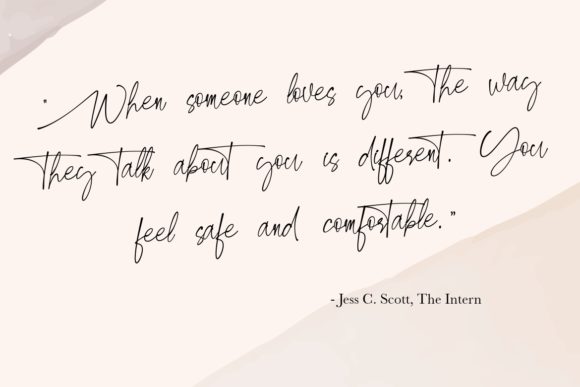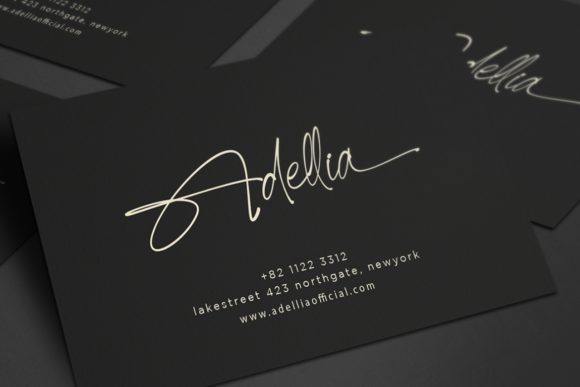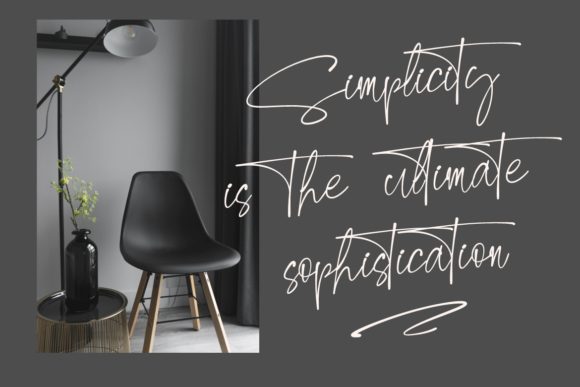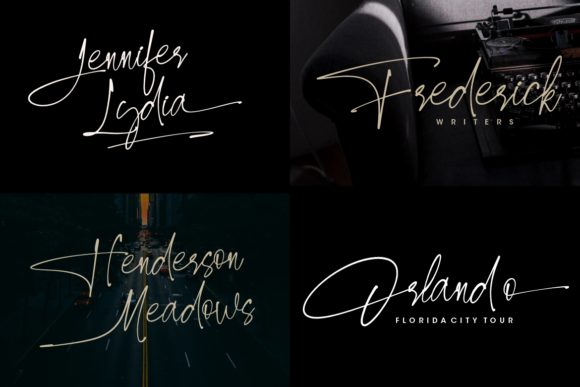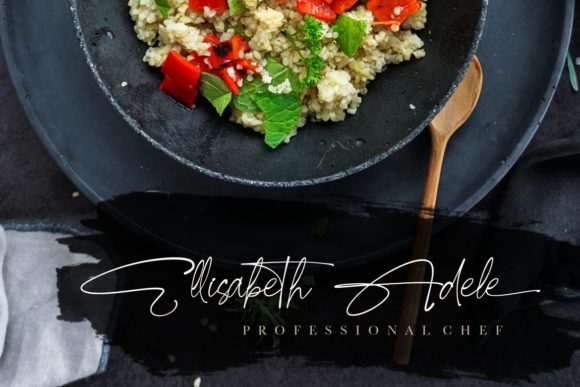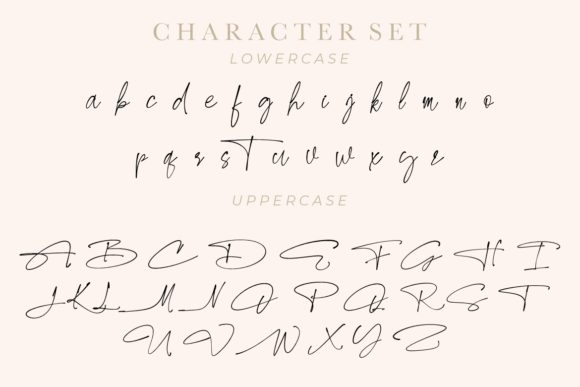
Introduction to Carlista Buttery Font
Have you ever been stuck on a creative project, searching for that perfect font to give it a unique touch? I know I have. The blank page staring back at me, begging for inspiration, until suddenly – a spark of creativity strikes, and I stumble upon a hidden gem. This time, it was the Carlista Buttery Font that caught my eye, and I couldn’t be more thrilled to share it with you.
As a valuable addition to any designer’s arsenal, the Carlista Buttery Font is a high-quality, elegant handwritten font that exudes style and sophistication. Its natural look and feel make it an ideal choice for designers seeking to add a personal touch to their creative projects. Whether you’re working on a design resource, a marketing campaign, or a personal project, this font is sure to elevate your work to the next level.
Key Features of Carlista Buttery Font
- High-quality font with a unique, buttery texture, perfect for creative projects
- Transparent background, allowing for seamless integration with any design
- Designed with a high resolution of 300 DPI, ensuring crisp and clear typography
- Perfect for use in logos, branding, and packaging design, adding a touch of elegance and sophistication
Honest Review: Carlista Buttery Font
What works well about the Carlista Buttery Font is its unique, buttery texture that gives it a warm and inviting feel. It’s perfect for designing materials that need a soft, approachable tone, such as branding for food or wellness companies. The transparent background is also a great feature, as it allows for easy layering and manipulation in design software.
- ✨ Unique, buttery texture that adds a warm feel to designs
- ✨ Transparent background for easy layering and manipulation
However, there are some limitations to the Carlista Buttery Font. For one, it may not be suitable for designs that require a bold, edgy look. Additionally, the font may not be as versatile as some other design resources, as its unique texture may not lend itself to every project.
Overall, I’m impressed with the Carlista Buttery Font. It’s a high-quality design resource that can add a unique touch to creative projects. While it may have some limitations, its free download and transparent background make it a valuable addition to any designer’s toolkit.
To get the most out of the Carlista Buttery Font, experiment with different font sizes, colors, and styles to create a unique look for your design. You can also use the font in combination with other design elements to create a cohesive and visually appealing design.
The Carlista Buttery Font is commonly used in creative projects such as branding, marketing materials, and editorial design. Its high-quality design and transparent background make it an ideal choice for designers looking to add a professional touch to their work.